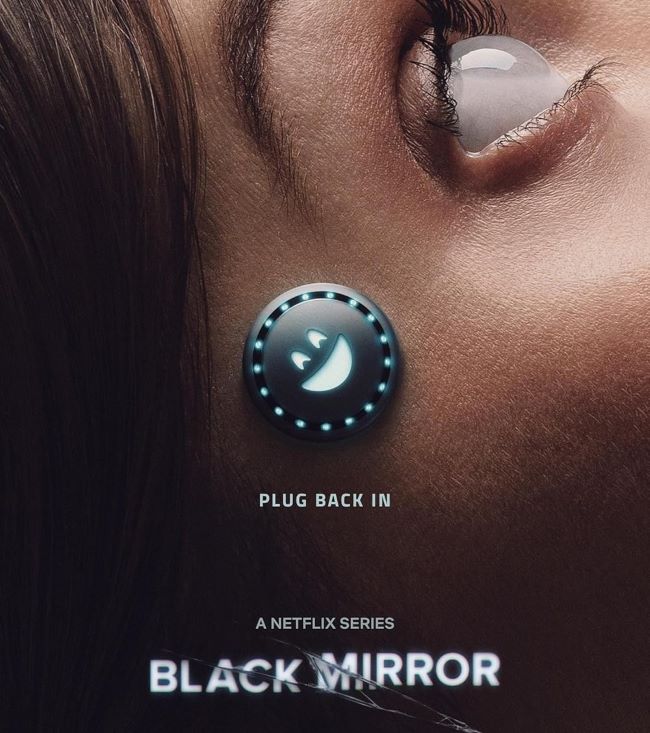
The Black Mirror font is sleek, modern, and a little unsettling—just like the series it represents. With its clean sans-serif style and sharp, minimal lines, the Black Mirror font conveys a futuristic yet cold atmosphere, perfectly reflecting the show’s dark take on technology and society. The simplicity of the design makes it instantly recognizable while also leaving space for the eerie tension that defines the series. It feels polished on the surface, but much like Black Mirror itself, there’s always something disturbing beneath the clean exterior.
Designers and fans are often drawn to the Black Mirror font because it captures that balance of modern elegance and dystopian unease. It works well in digital projects, posters, and anything that aims to evoke a tech-driven, unsettling mood. The Black Mirror font isn’t flashy—it’s precise and deliberate, which is what makes it so effective.
The series Black Mirror first aired in 2011 and has since become one of the most talked-about anthology shows of the modern era. Each episode tells a standalone story exploring the darker side of technology, human behavior, and the future. Just like the Black Mirror font, the show is sharp, thought-provoking, and unforgettable. You can also check our free fonts collection.